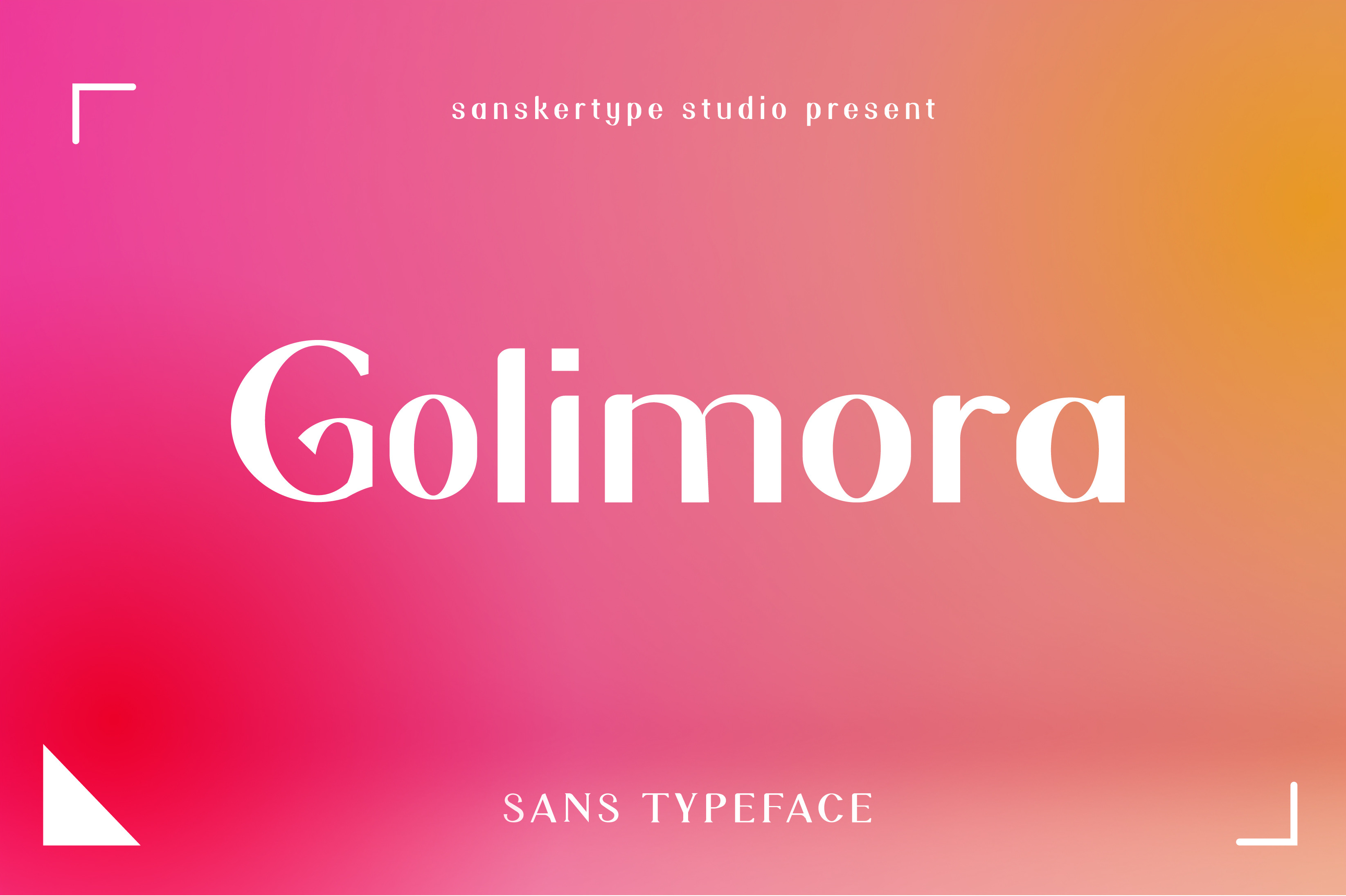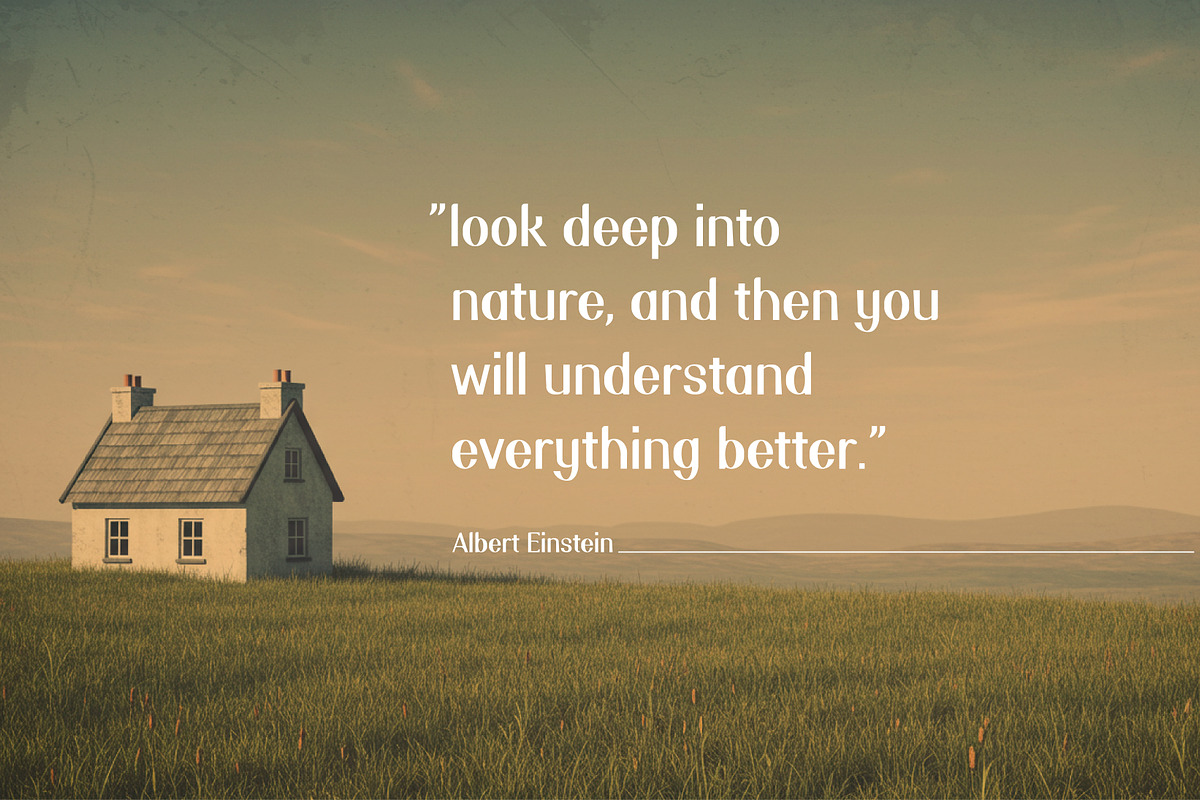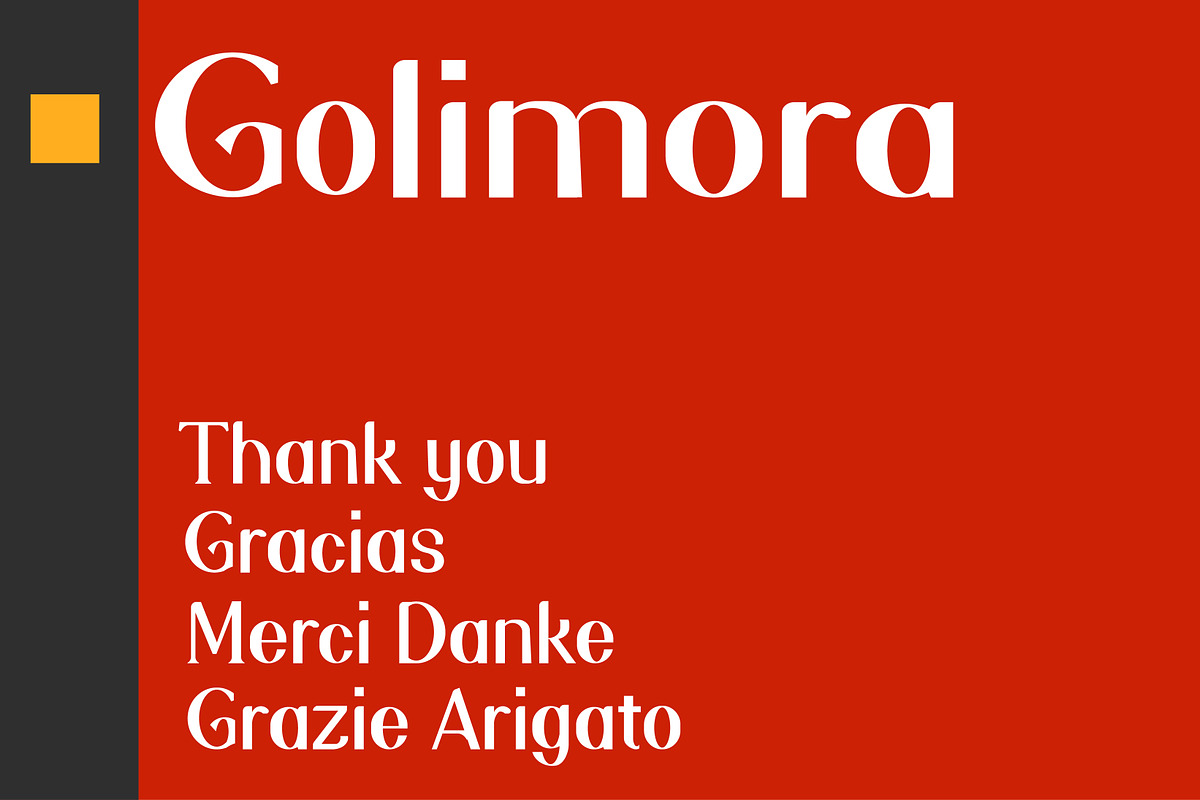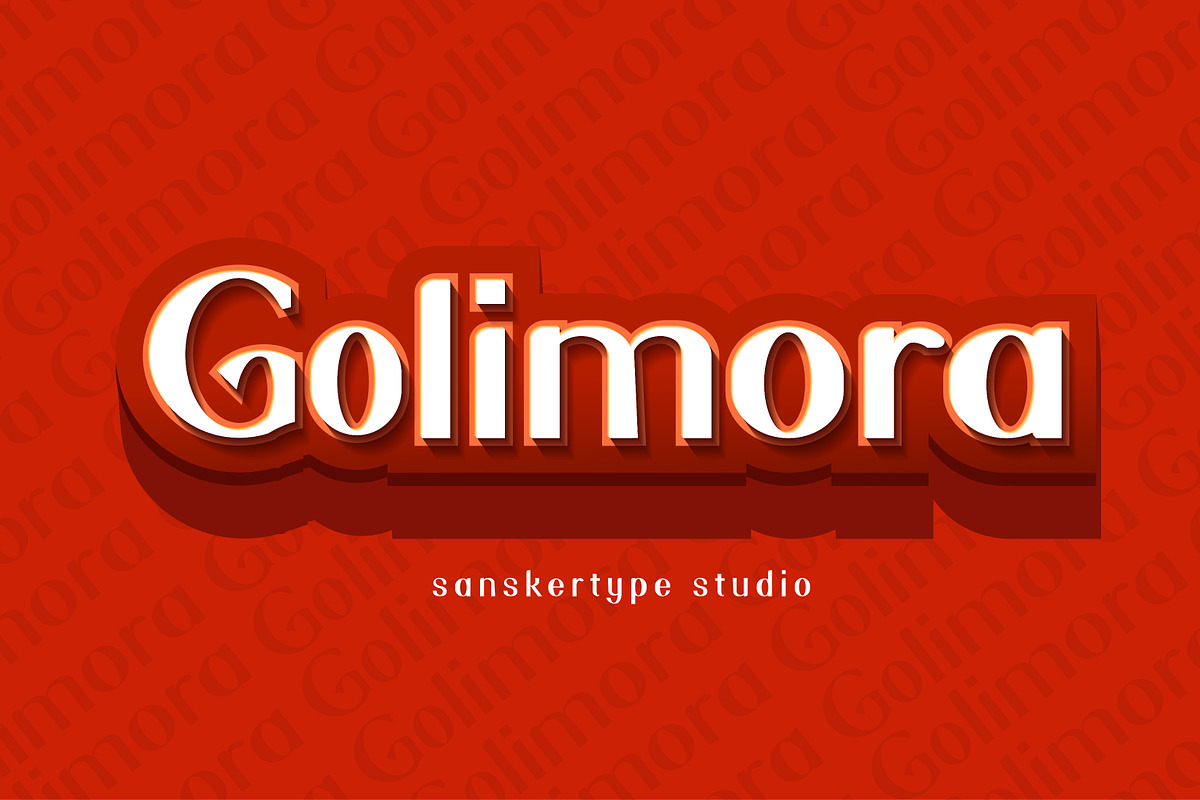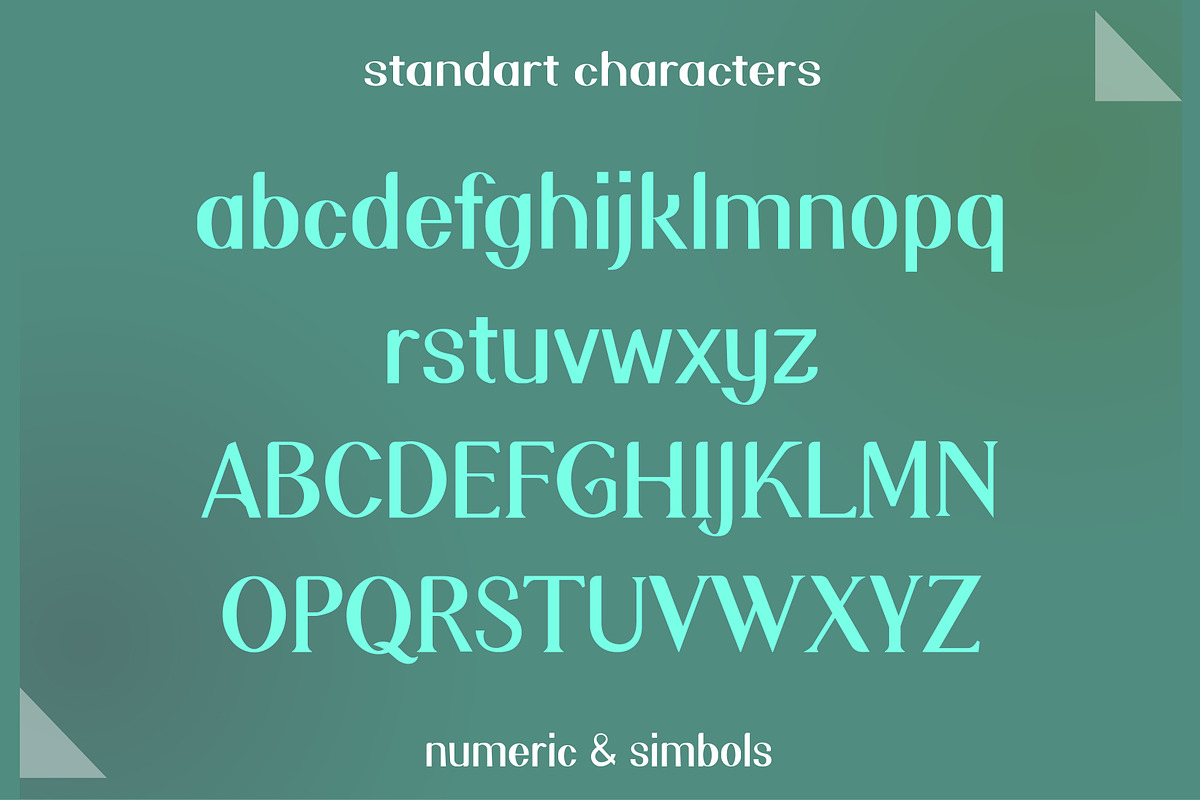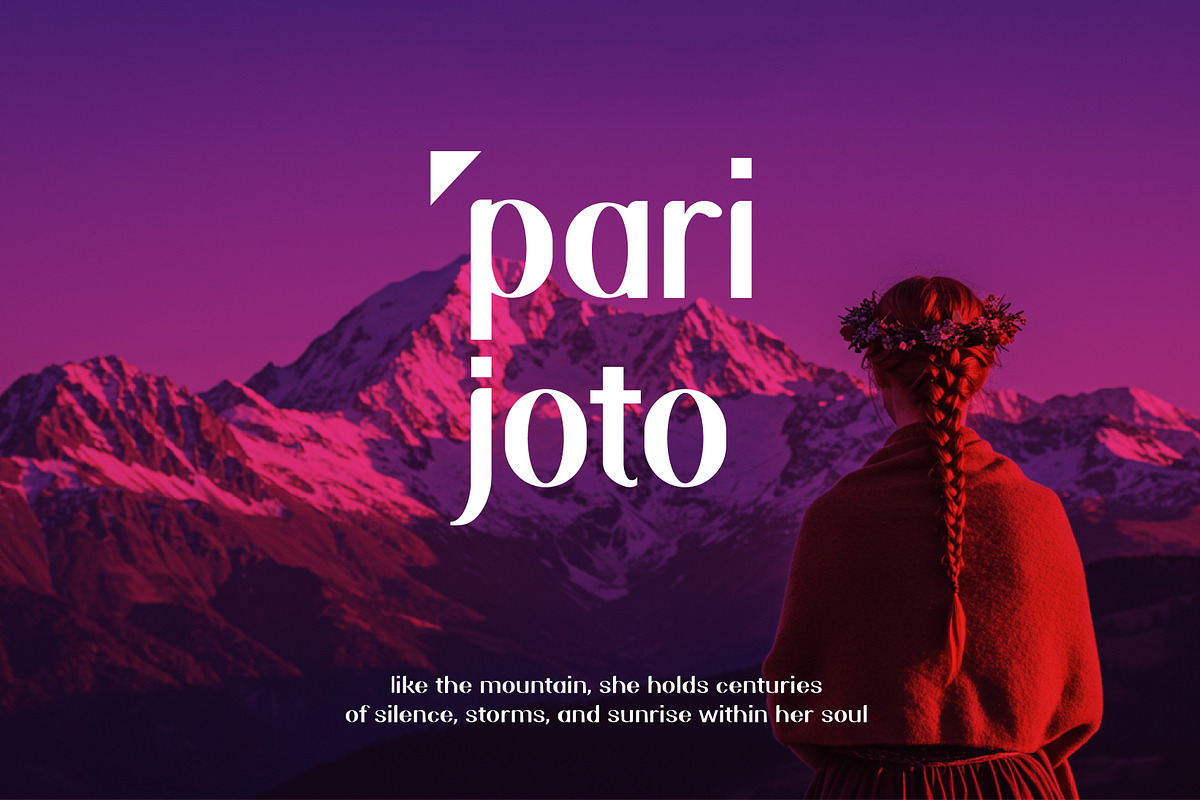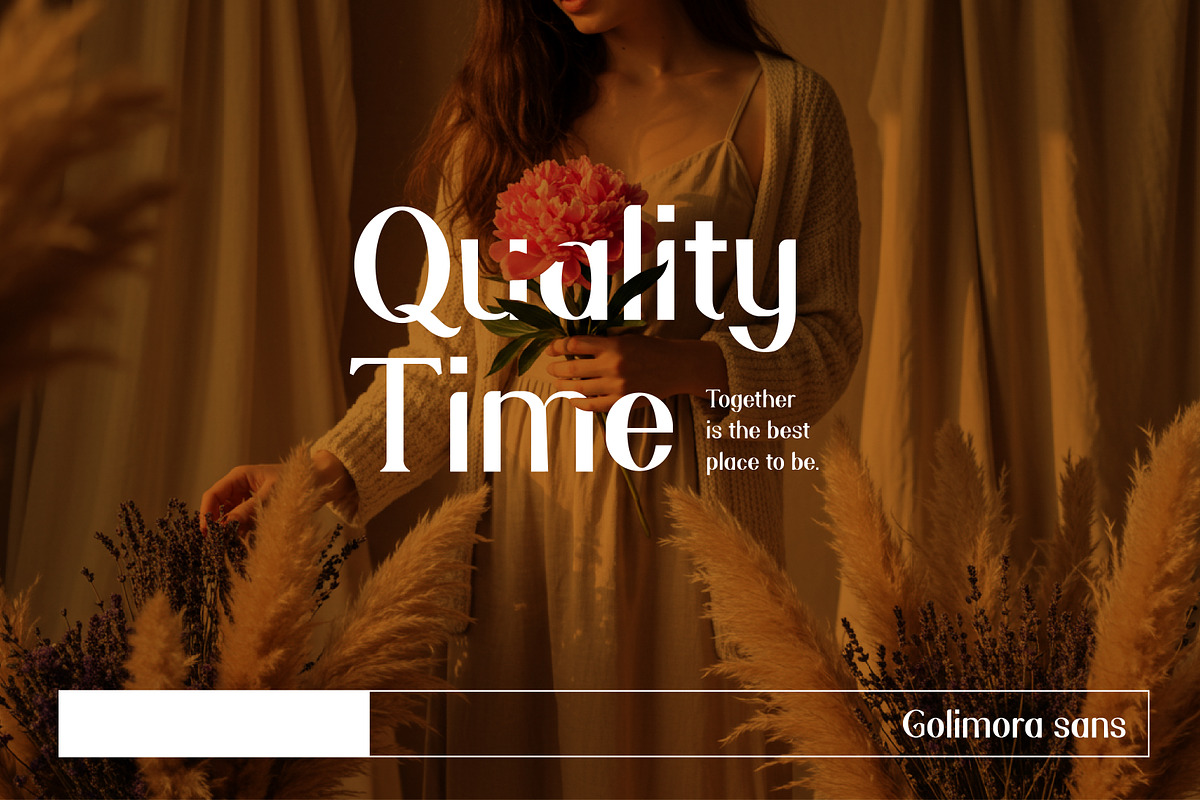
Golimora – Modern Serif Typeface
Golimora is a modern serif typeface that combines fashionable elegance with timeless design. Its clean shapes and refined details bring a professional yet stylish look, making it the perfect choice for projects that demand both sophistication and versatility.
Ideal for branding, logos, headlines, magazines, posters, and packaging, Golimora adds a modern-classic charm that feels everlasting and effortlessly stylish.
Make your design names pop with the modern trendy of Golimora—where style meets versatility.